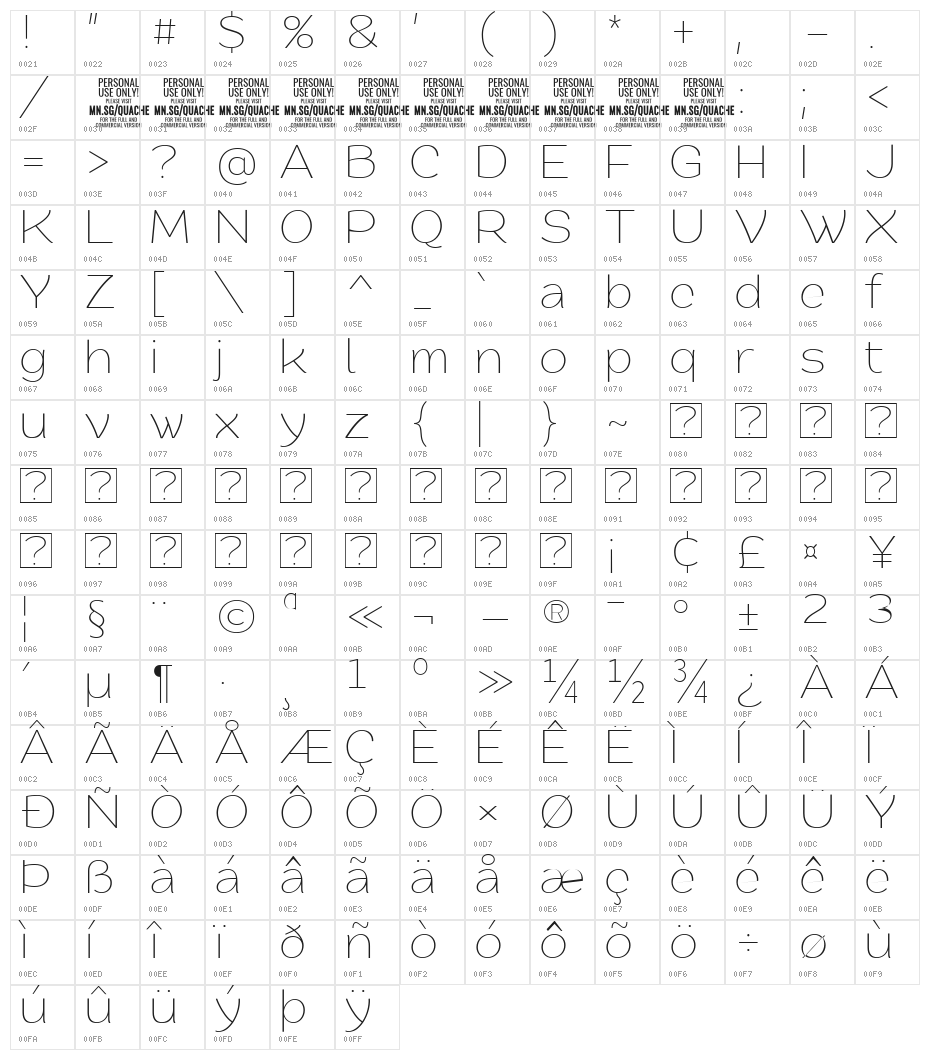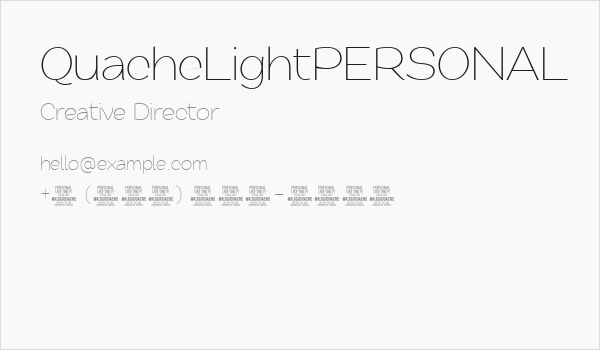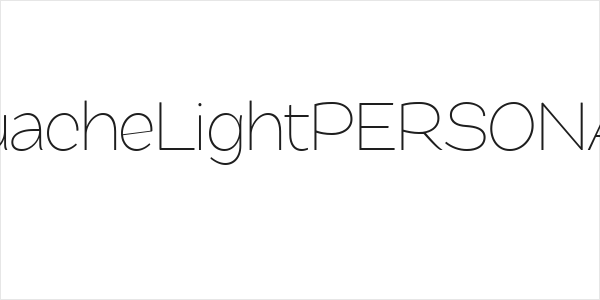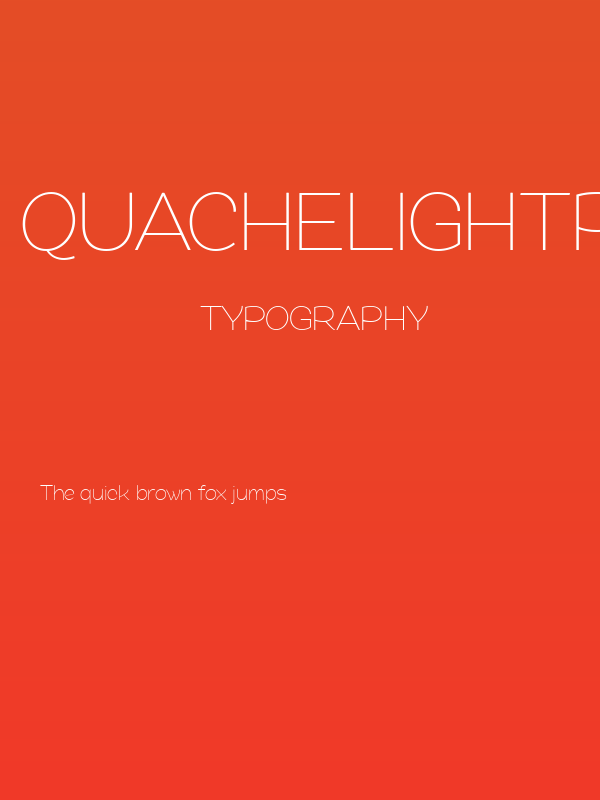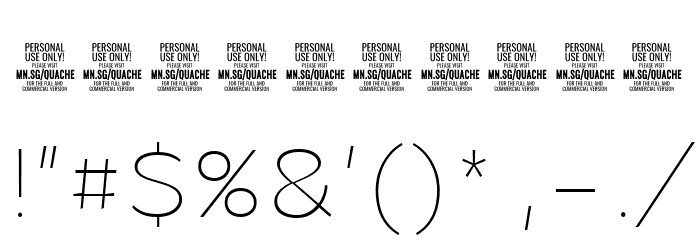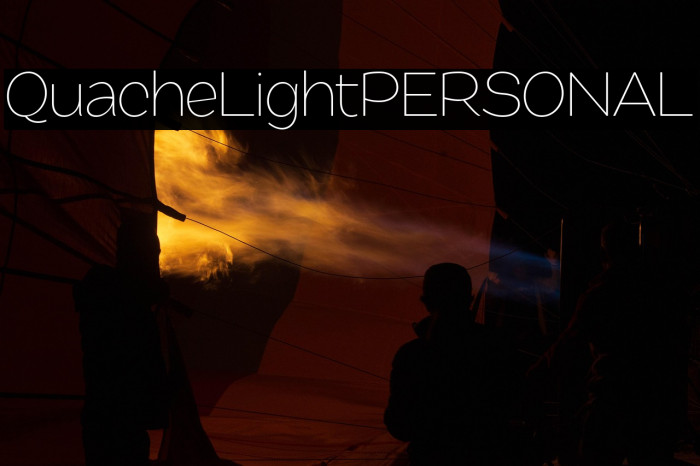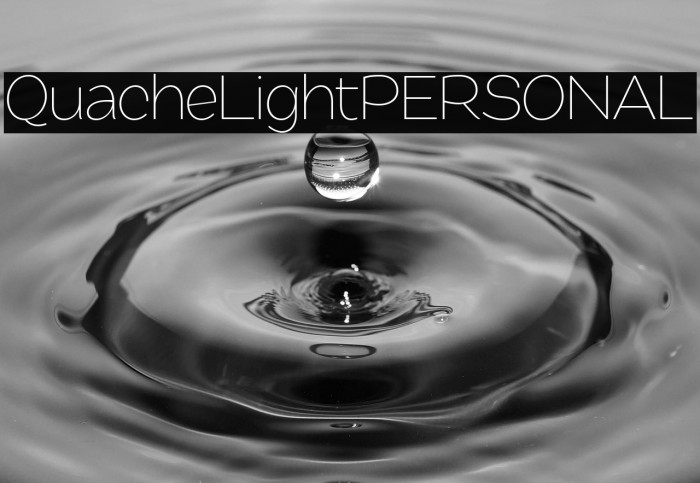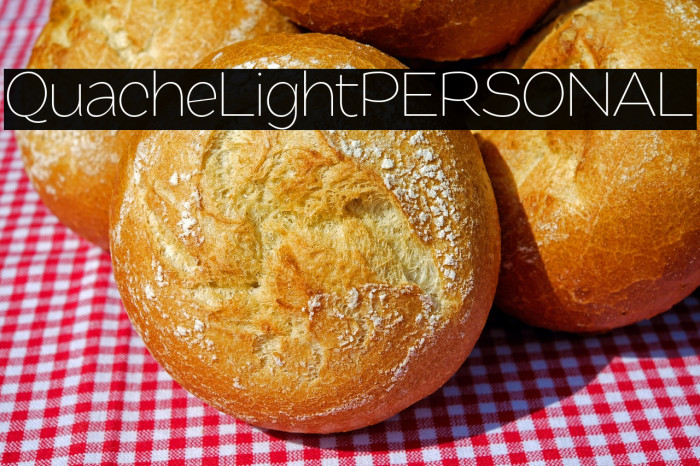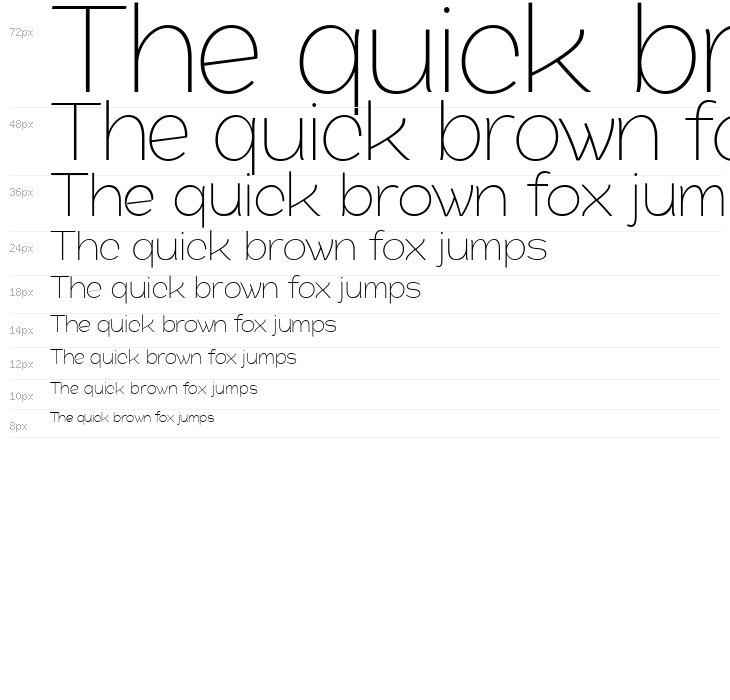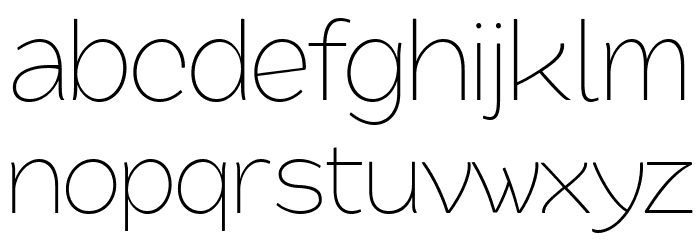
QuacheLightPERSONAL Font
This font features a clean and minimalist design with thin, uniform strokes that give it a modern and sleek appearance. The characters are well-proportioned, with a consistent height and width that contribute to its readability. The uppercase and lowercase letters maintain a harmonious balance, while the numerals and special characters are designed to complement the overall aesthetic. The font's simplicity and elegance make it suitable for a variety of design applications, from digital to print media.
| Proposed Projects | Ideal for branding, web design, editorial layouts, and minimalist graphic design projects. |